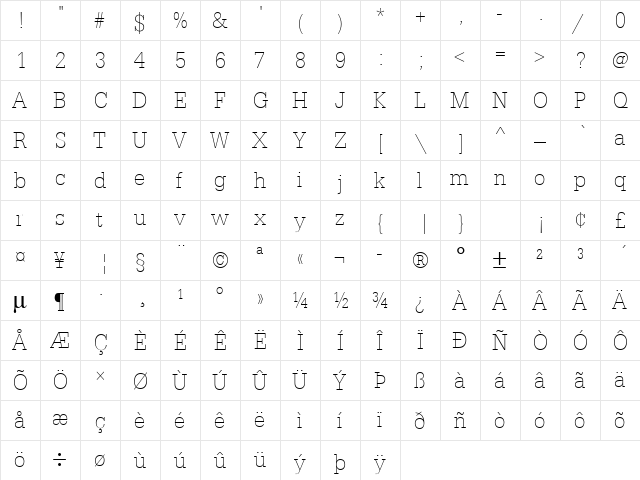
URWEgyptienneTExtLigExtNar Regular
Design Context for URWEgyptienneTExtLigExtNar Typeface
URWEgyptienneTExtLigExtNar takes a measured approach to typography — its balanced proportions and neutral character make it a reliable workhorse for both digital and print work.